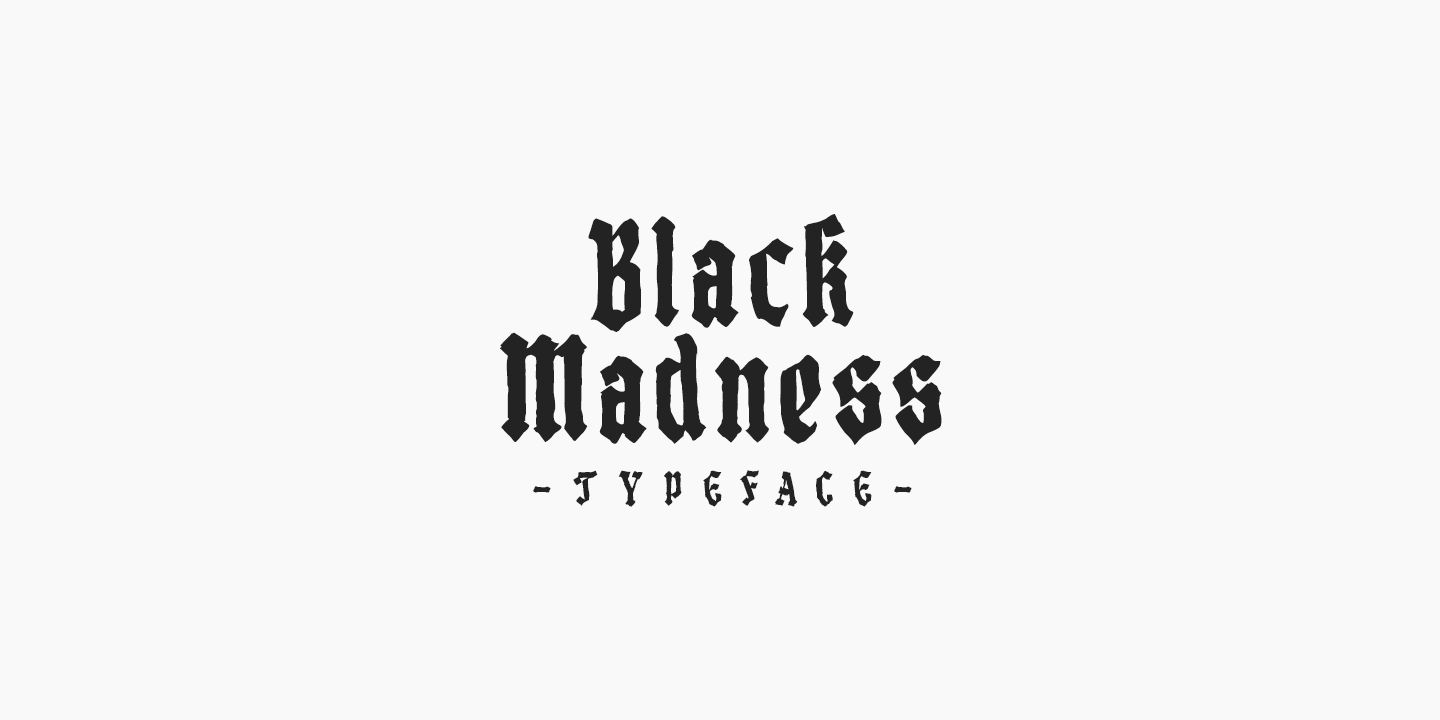
Black Madness Font is excellent for intense horror branding, extreme metal band logos, dark gaming interfaces, underground music promotions, gothic fashion campaigns, black Friday sales events, intense thriller book covers, extreme sports marketing, dark entertainment venues, and aggressive advertising materials.
What makes Black Madness Font exciting is its intense darkness that perfectly captures the overwhelming power and chaotic energy found in extreme experiences and dark cultural movements. This typeface features aggressive letterforms with chaotic proportions and dark-inspired details that evoke the raw intensity and uncontrolled energy of extreme expression and dark artistic movements. The font's intense personality and dark authenticity make it ideal for extreme brands seeking to convey power, intensity, and the overwhelming force that comes from extreme experiences and dark cultural expression.
Black Madness Font family includes intense weight variations and chaos-inspired alternatives that enhance its dark appeal while providing design flexibility for extreme and dark applications. The font features aggressive ligatures, darkness-themed ornaments, and intense character variations that create authentic extreme atmosphere for dark and intense branding.
Extreme entertainment companies and dark lifestyle brands consistently choose Black Madness Font Free Download for projects requiring authentic dark appeal and intense credibility. The font's aggressive character excels in applications targeting extreme enthusiasts, dark culture followers, and intensity seekers who appreciate genuine dark expression and extreme experiences. Whether you're designing for extreme sports, dark entertainment, or intense lifestyle brands, this powerful typeface delivers the dark authenticity and intense energy that resonates with audiences seeking genuine extreme experiences and the overwhelming power that defines dark cultural movements and intense artistic expression.